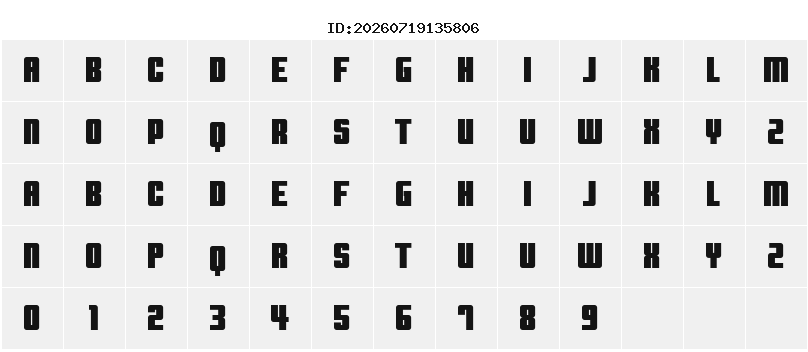
• Font Name: Clearwerkkraftremix
Clearwerkkraftremix.ttf is a modern, elegant sans-serif font designed for ultimate readability and visual harmony. Perfect for branding, headlines, web design, and print materials.